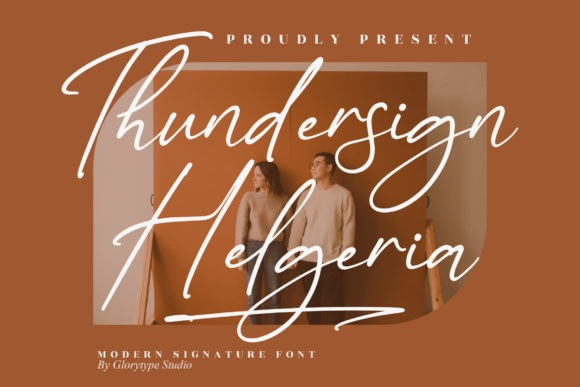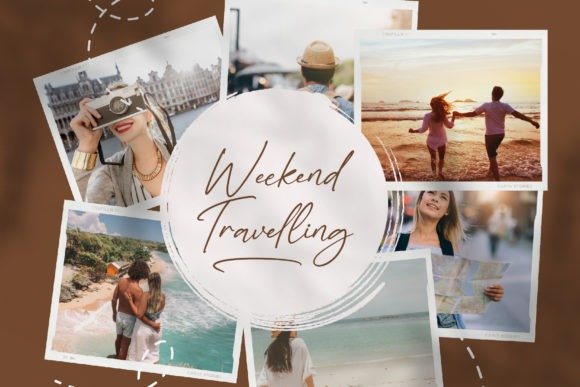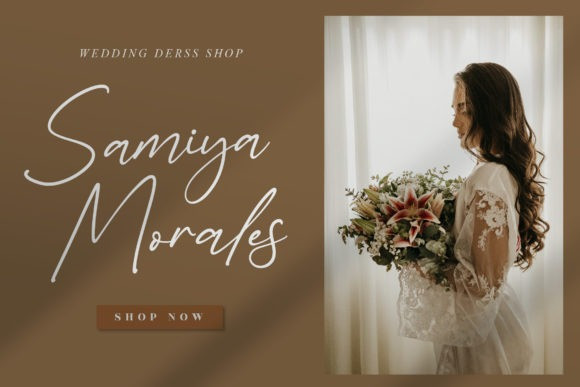
Thundersign Helgeria Font
Thundersign Helgeria is a magical script font carefully created with a touch of elegance. Whether you’re looking for fonts for Instagram or calligraphy scripts for DIY projects, this font will turn any creative idea into a true piece of art!